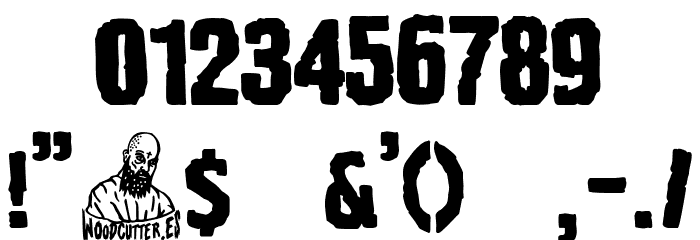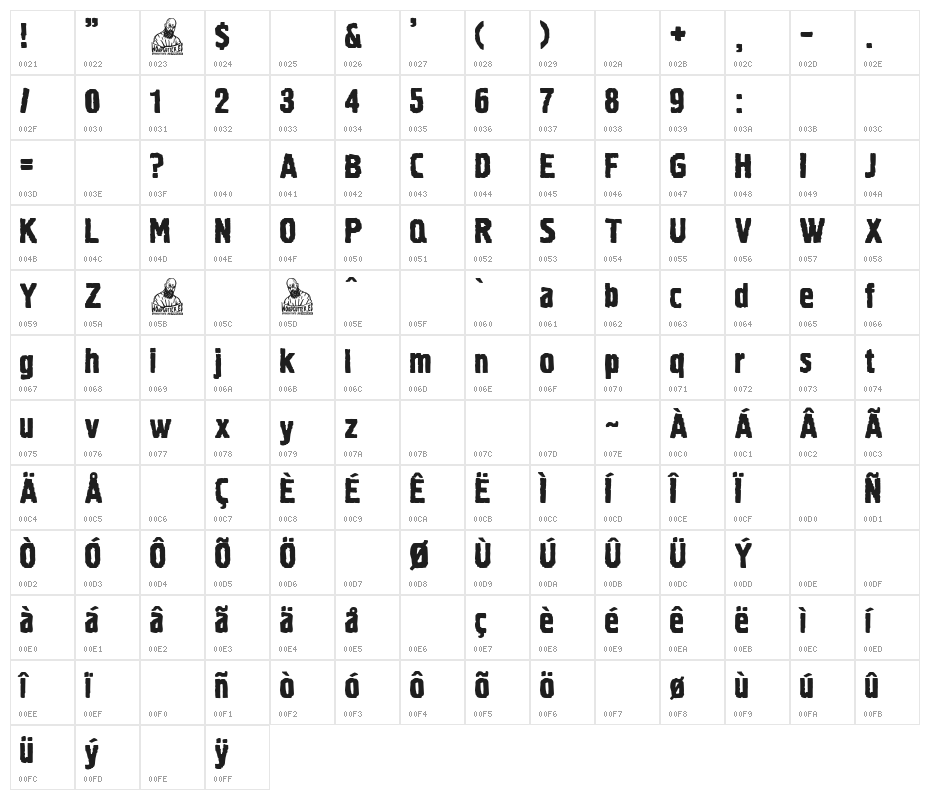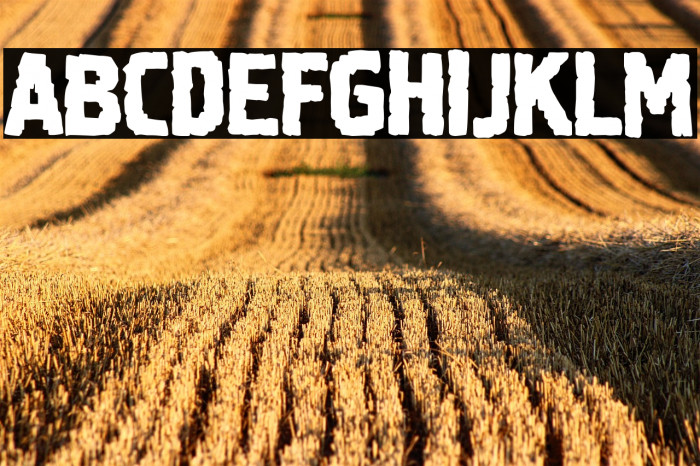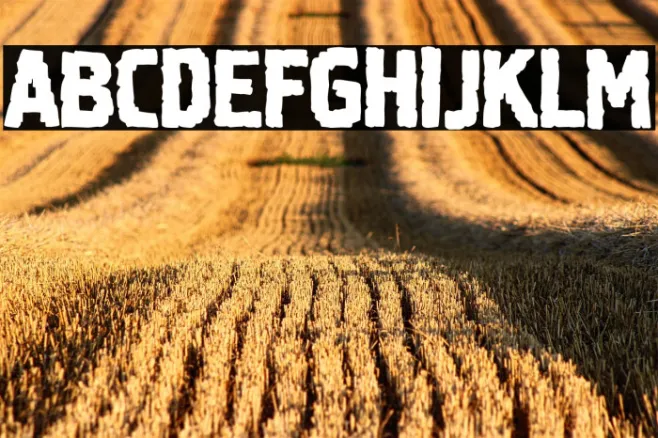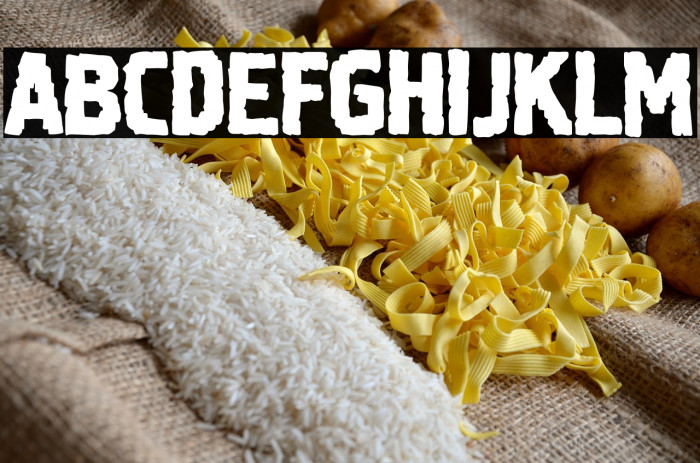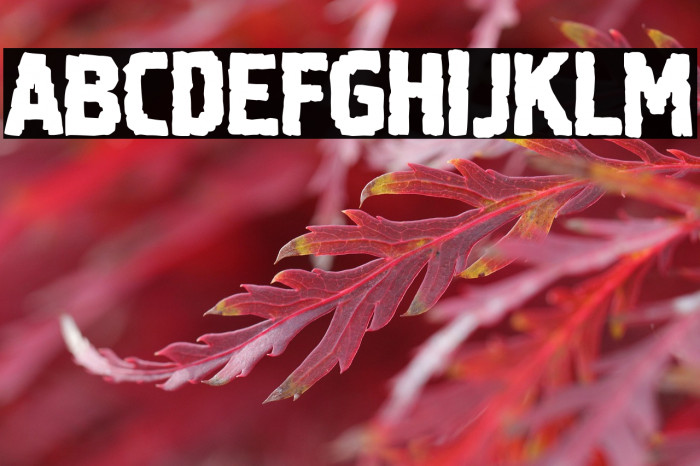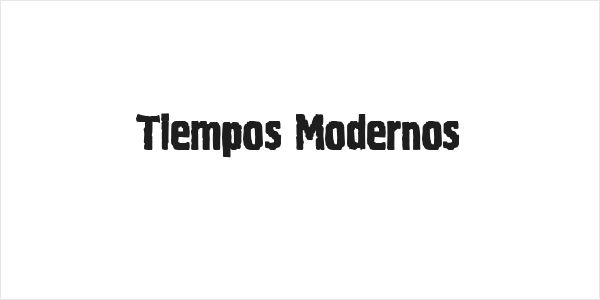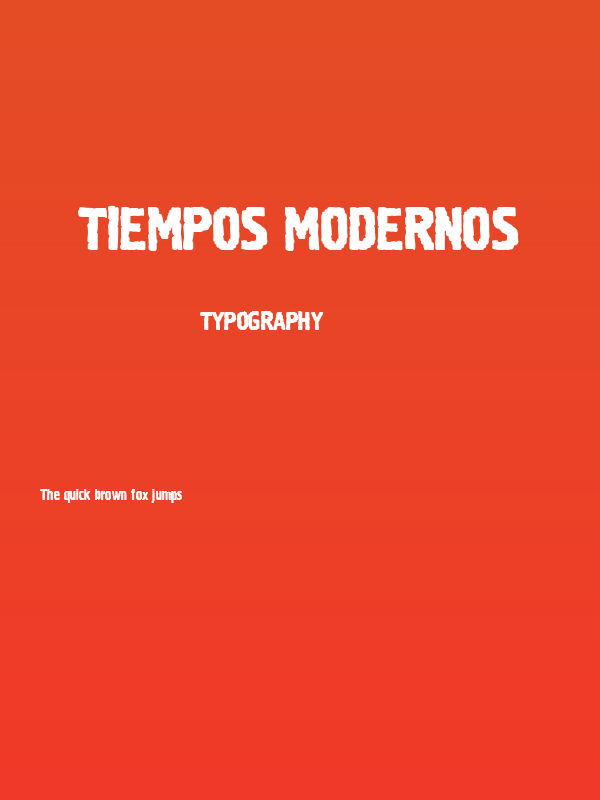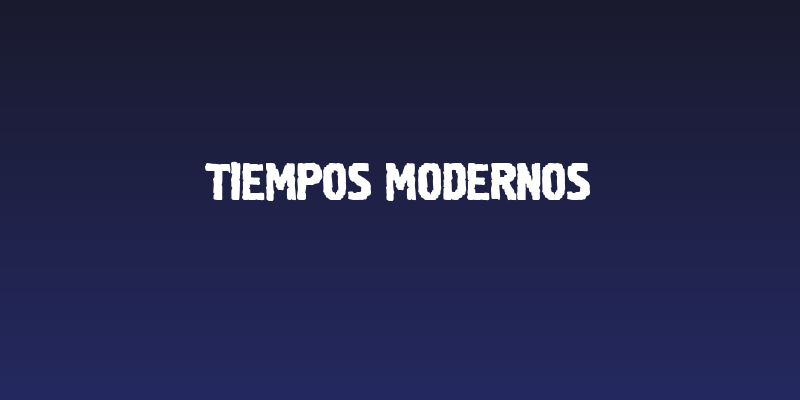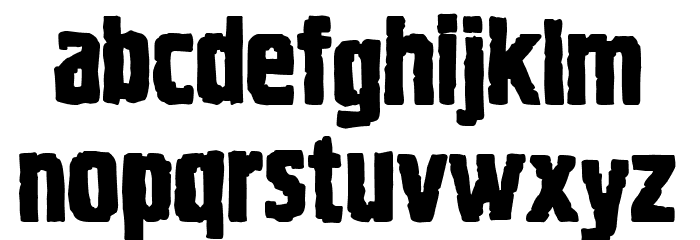
Tiempos Modernos Font
Tiempos Modernos Description
This font features a bold and rugged appearance, characterized by its uneven, distressed edges that give it a hand-crafted, organic feel. The uppercase and lowercase letters maintain a consistent weight, contributing to its strong visual impact. The numerals and special characters follow the same design ethos, ensuring uniformity across all glyphs. Its unique style is reminiscent of vintage or retro designs, making it suitable for projects that require a touch of nostalgia or a bold statement. The font's distinctive look is ideal for capturing attention and conveying a sense of authenticity.
| Proposed Projects | Ideal for posters, logos, branding, and any design requiring a bold, vintage aesthetic. |